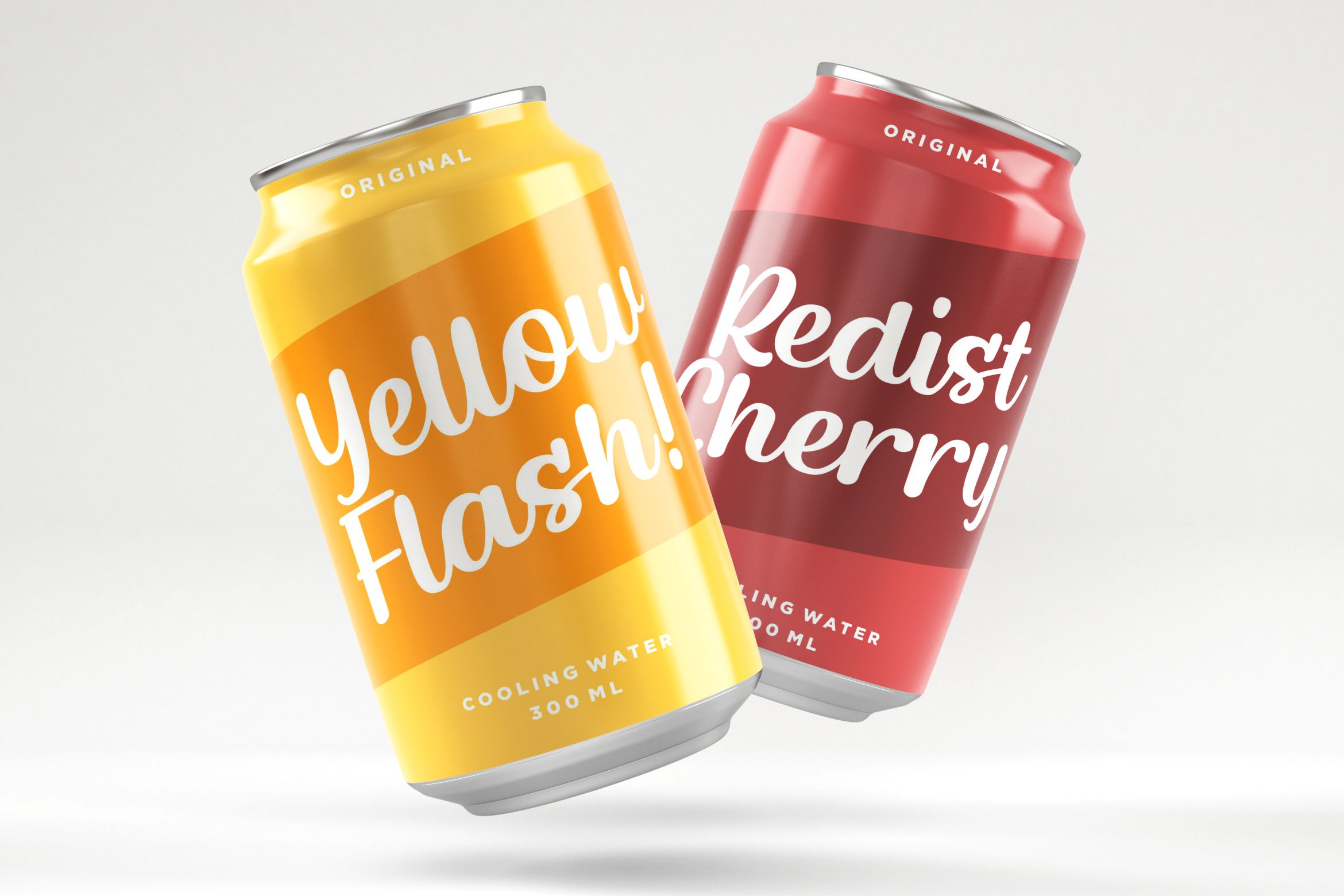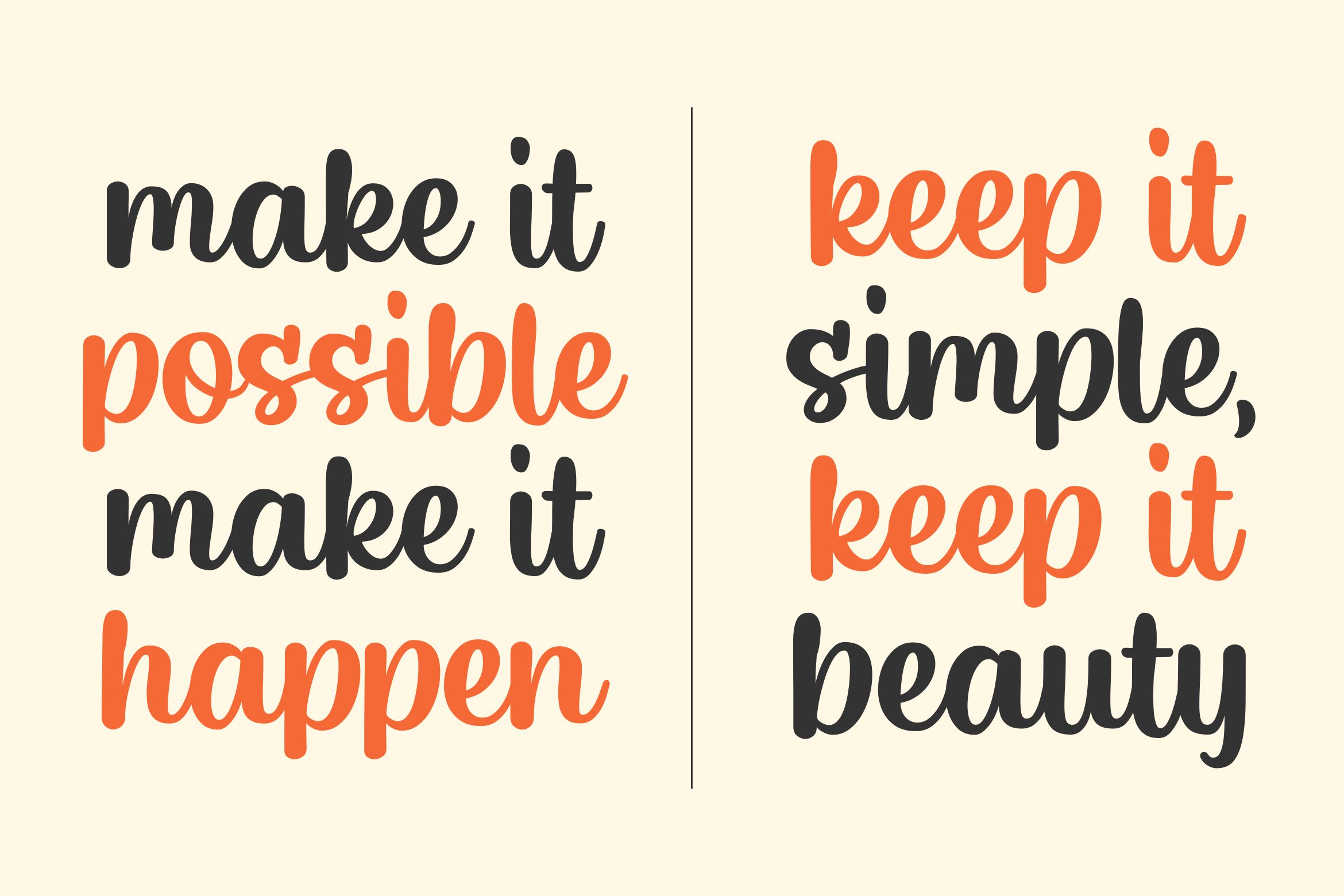
Rocket Chicken Script Font
It’s a smooth handwritten font with a personal charm and modern twist. Rocket Chicken come with multilingual support. This font is suitable for your design needs such as product packaging, merchandise, social media design, T-shirts, Logotype, and more. Enjoy Designing, Thank you.